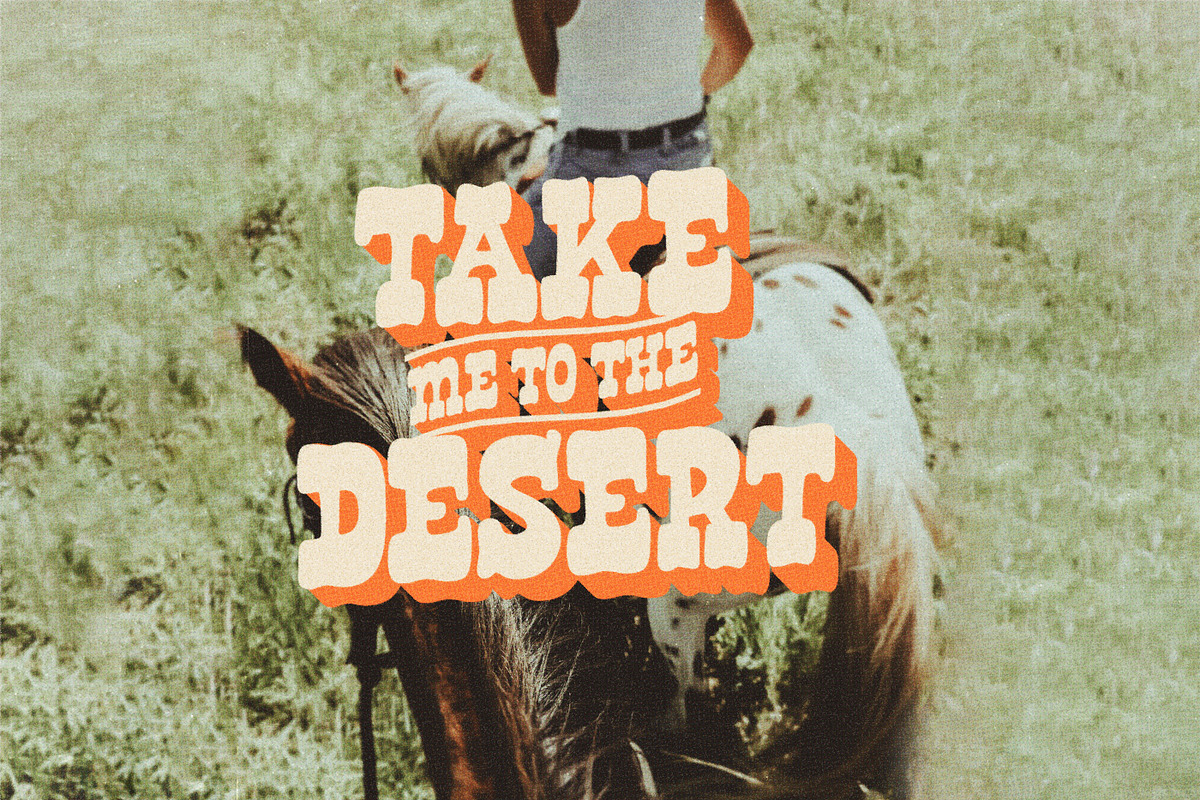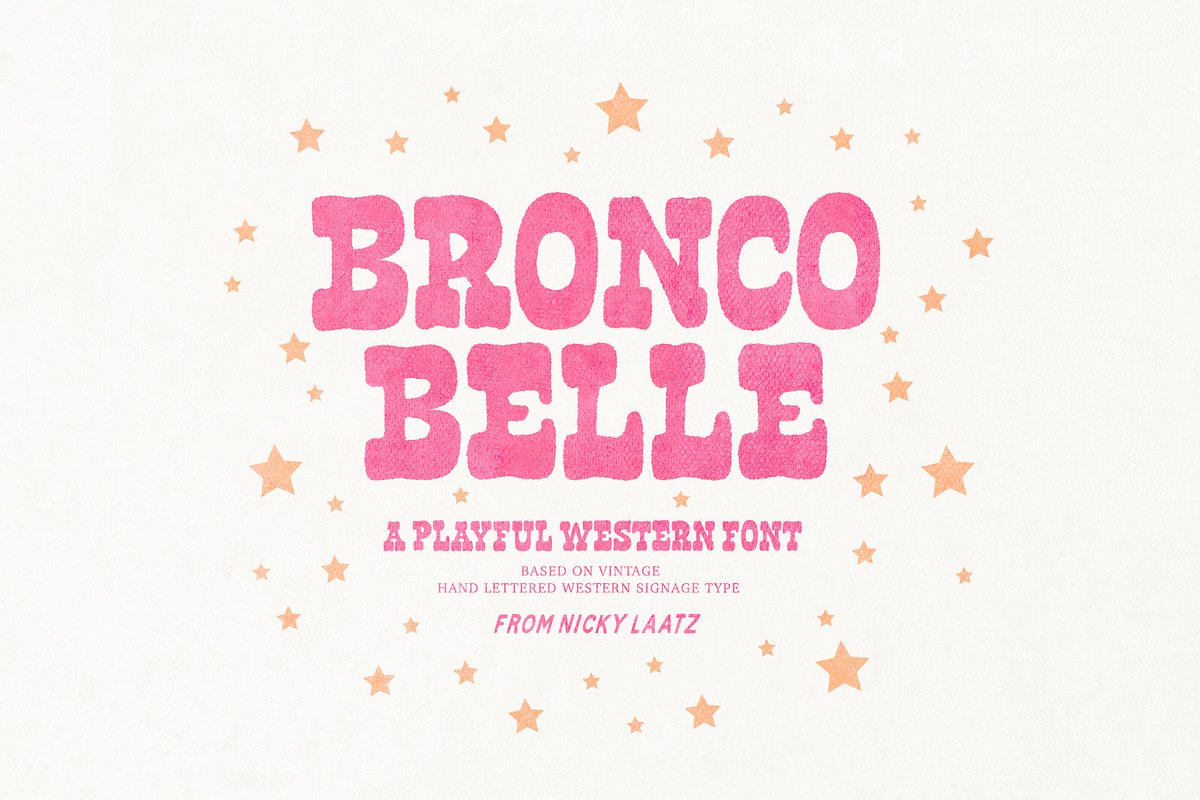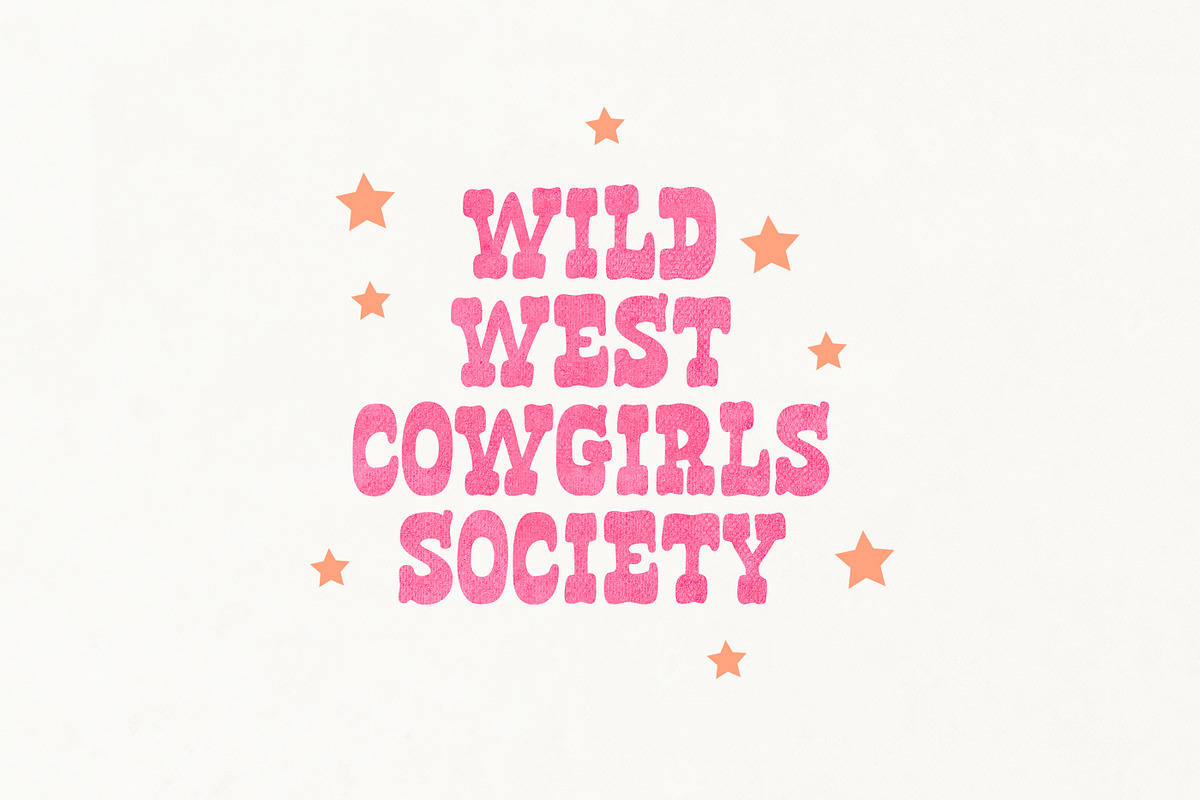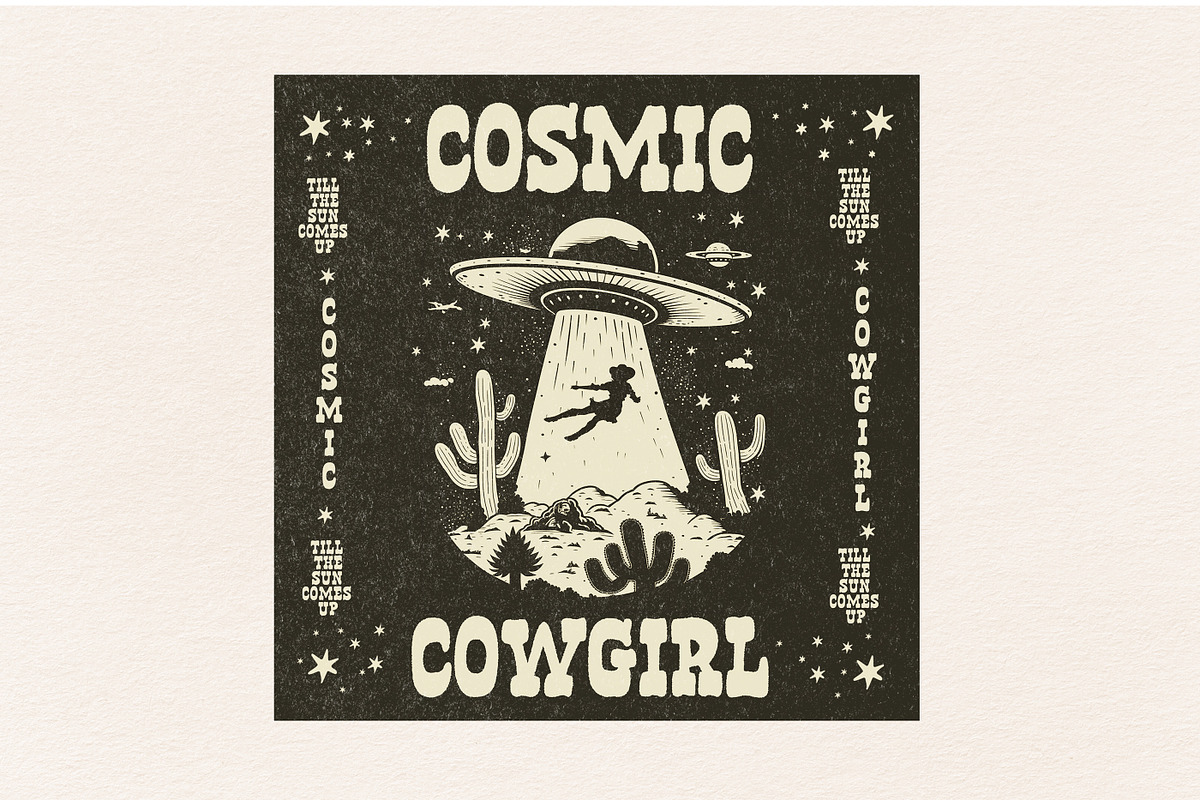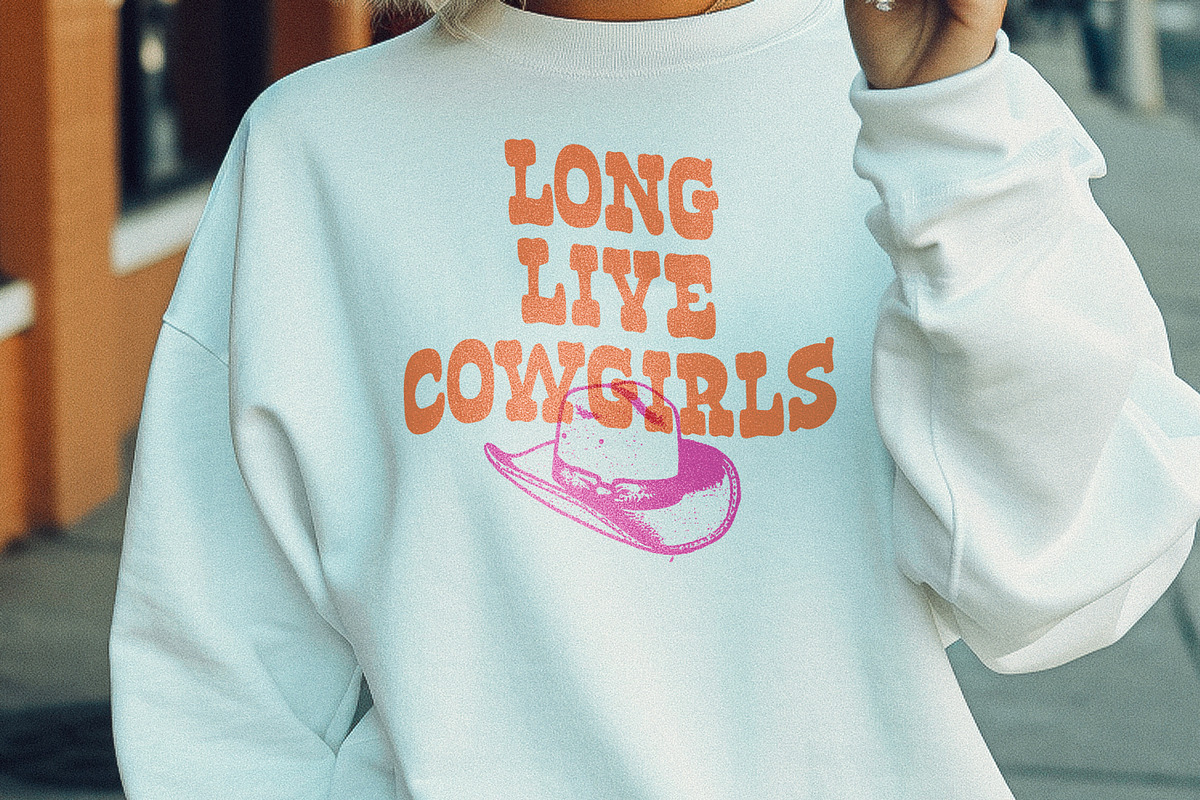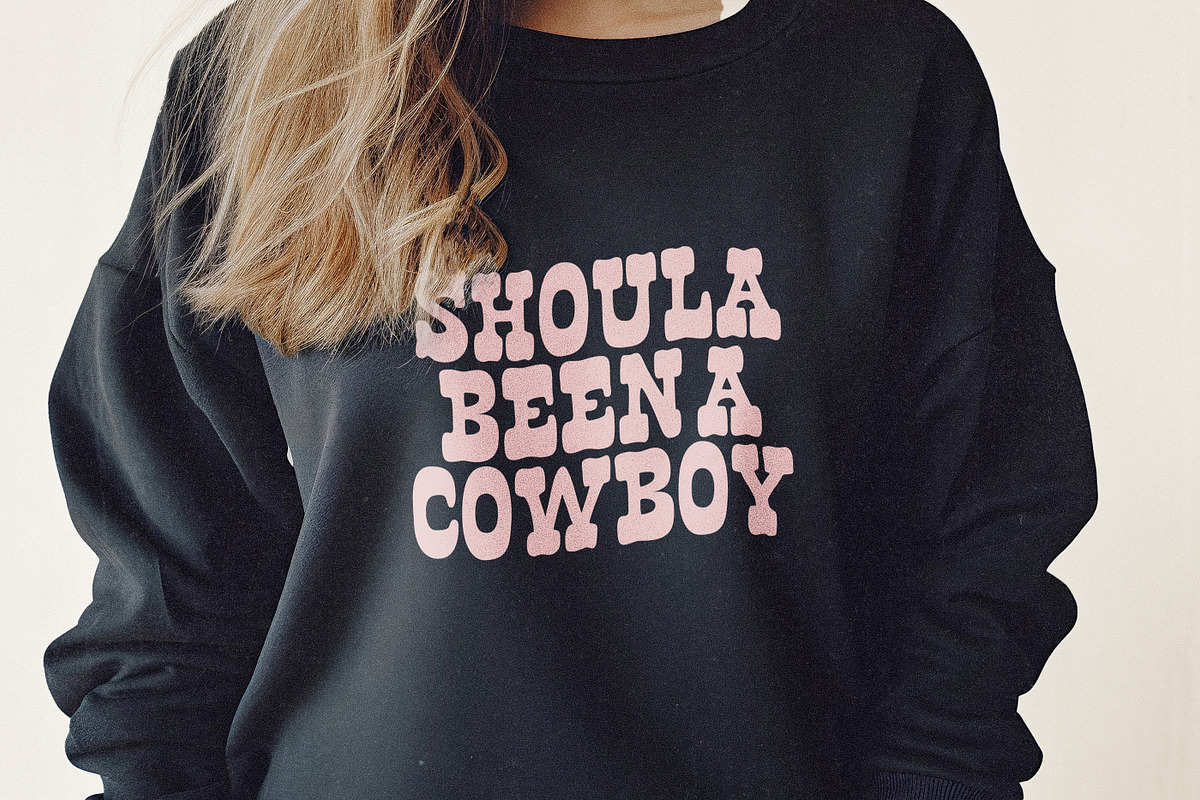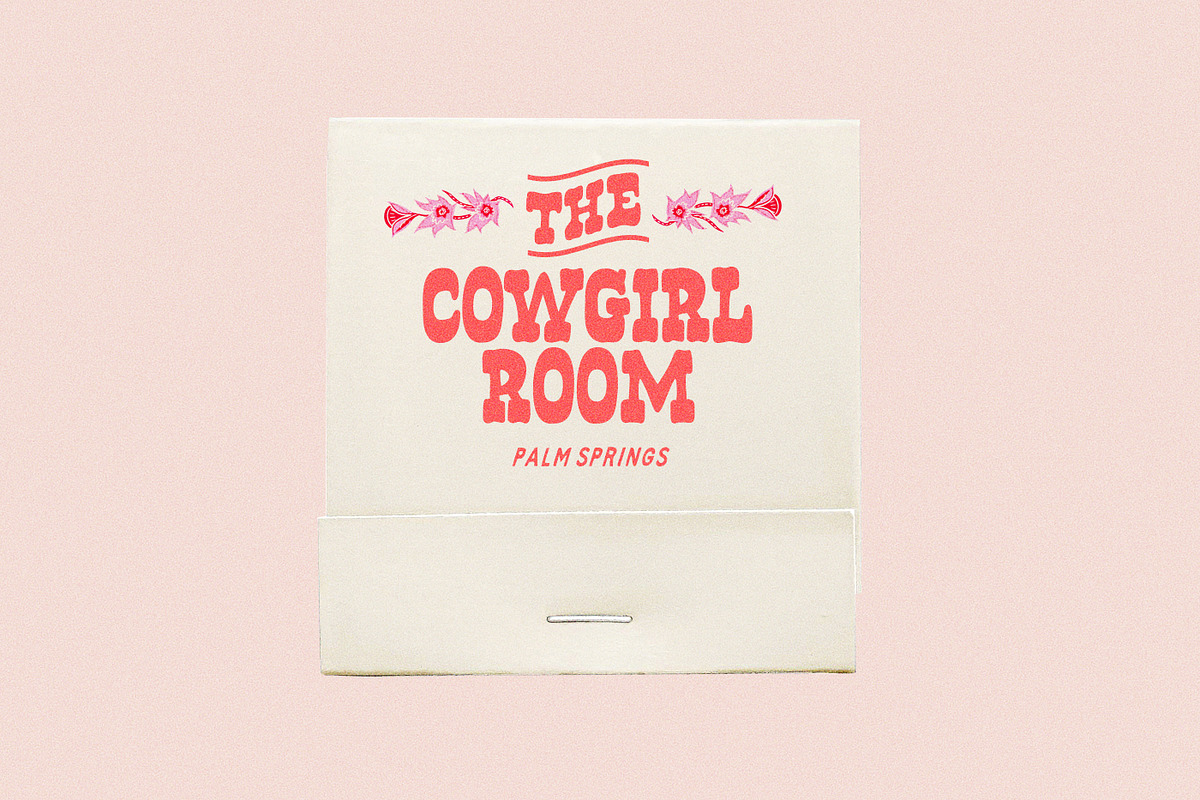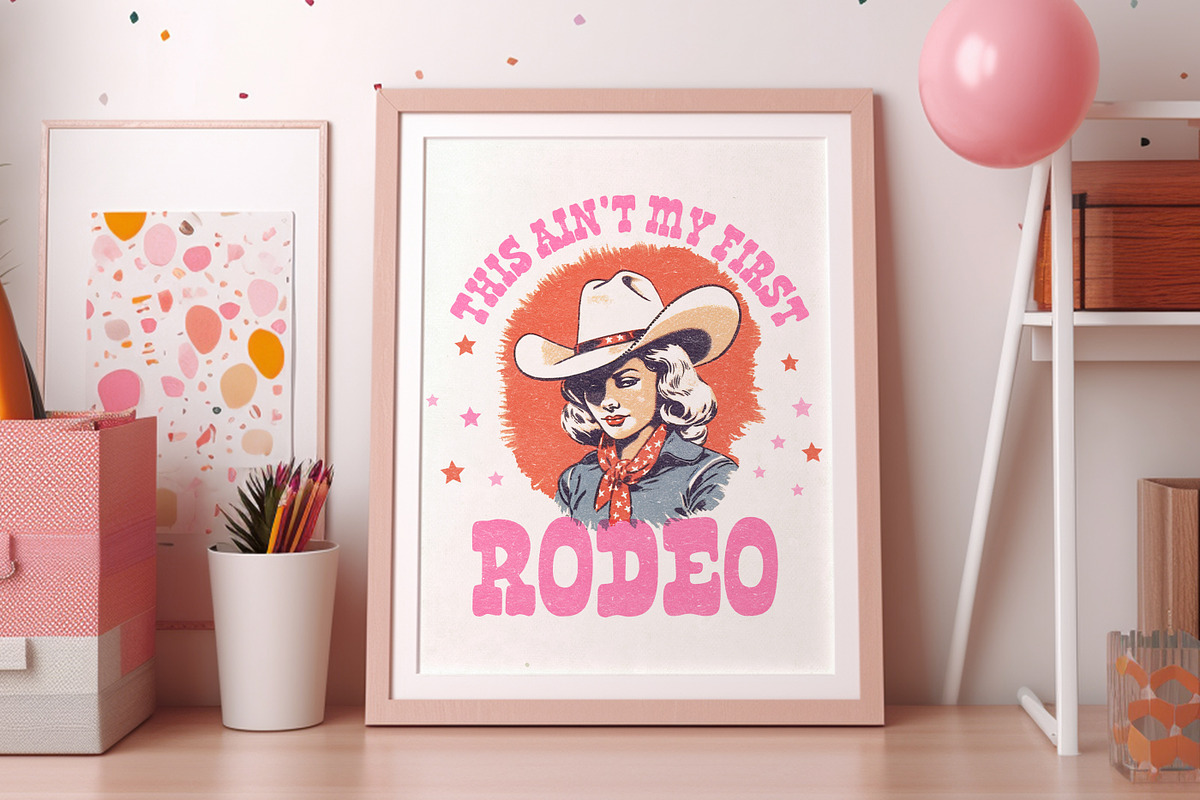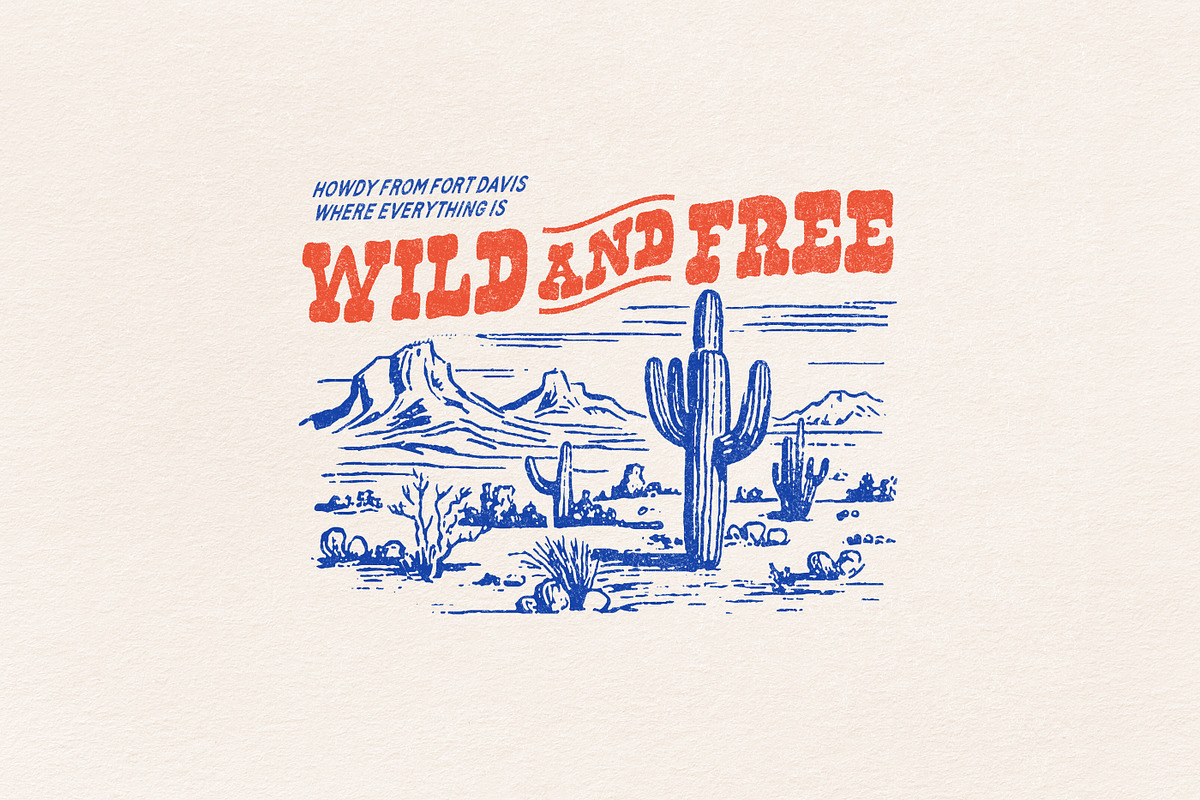
Bronco Belle Typeface
Say hello to Bronco Belle!! A bold and playful, retro-vintage western typeface thats rugged, rustic and ready for some fun :)
Available in Regular and Wide, the typeface has 4 variants : Regular, Rough-edged, Grungy and Grungy with rough edges.
Regular : Smooth edged original. Rough : A grainy textured edge - great for an ink bleed look on paper. Grunge : A grungy stamped ink look. Rough Grunge : A combo of the above two :)
There are also some handy catchwords and phrases in the. Opentype features - find them in your glyphs panel ( Also PUA encoded for those who know how to use)
Have a rootin' tootin' good time with her!